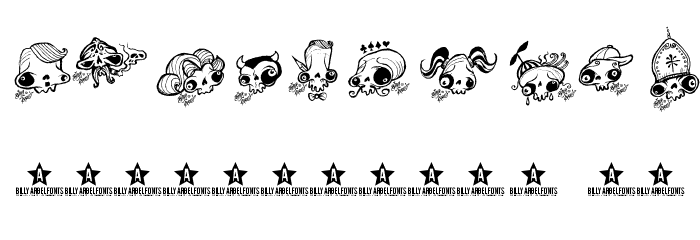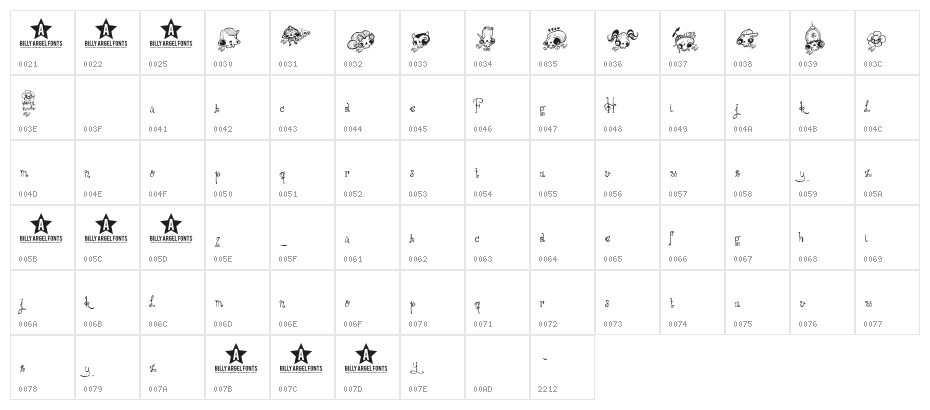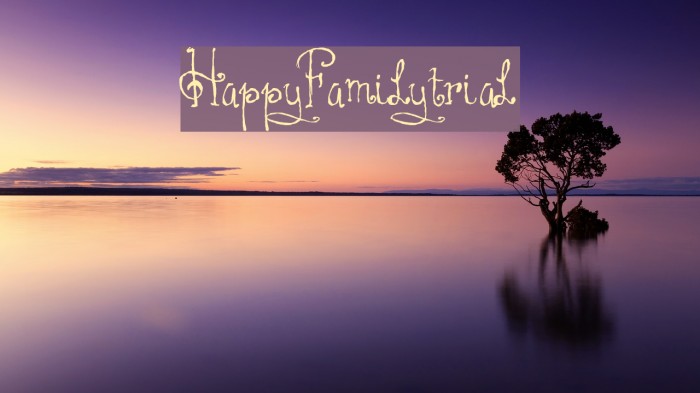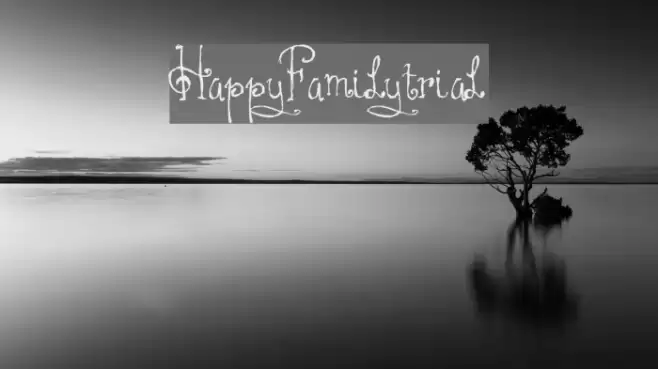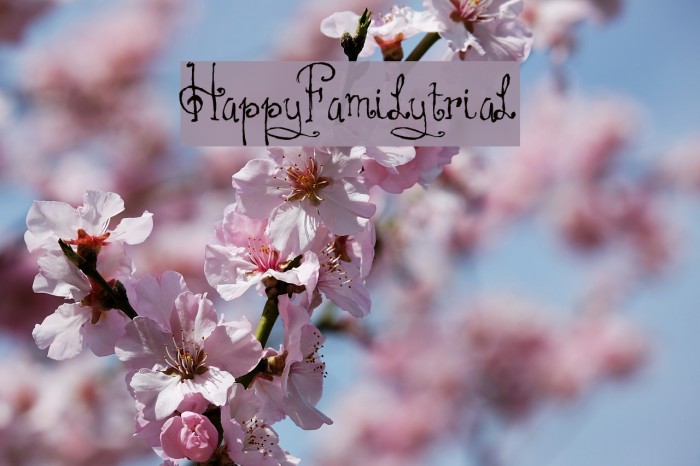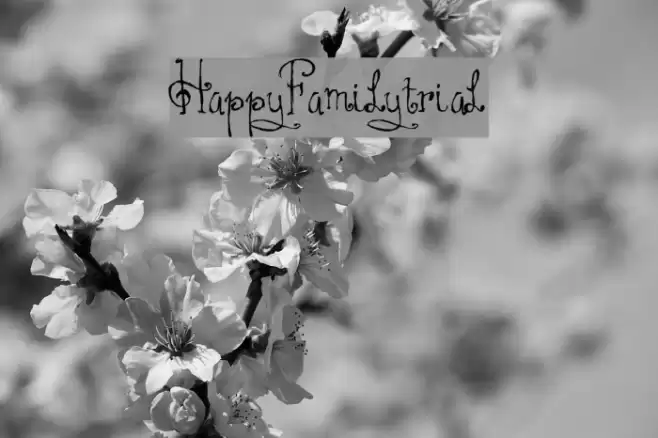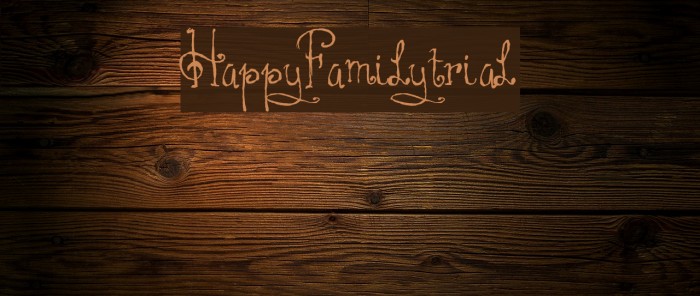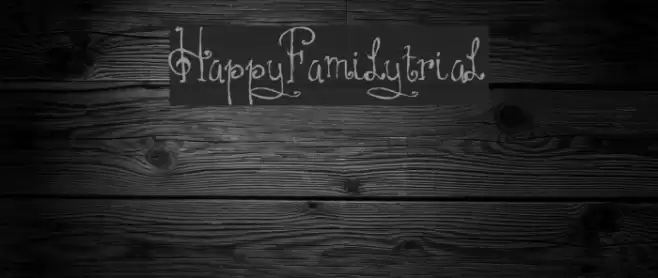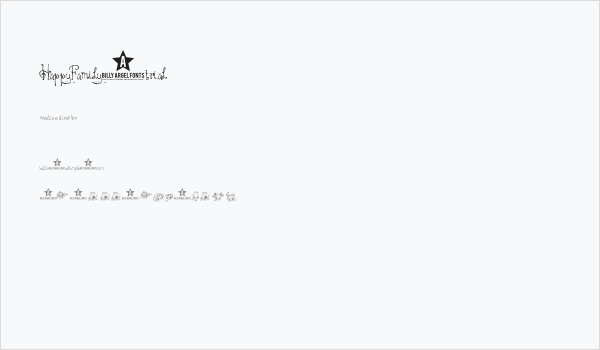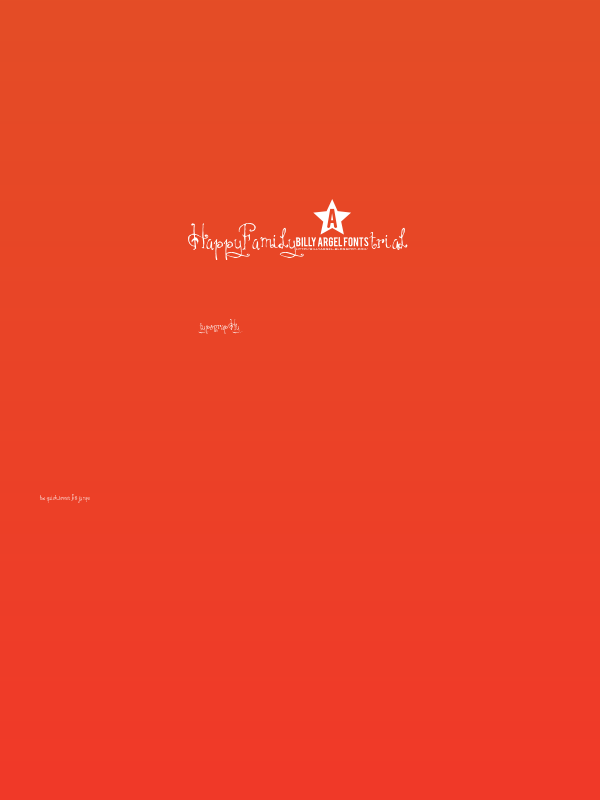
HAPPYFAMILY-TRIAL Font
HAPPYFAMILY-TRIAL Description
This font features an intricate and whimsical design, characterized by its ornate and decorative letterforms. Each character is uniquely crafted with elaborate swirls and embellishments, giving it a playful yet gothic appearance. The uppercase and lowercase letters maintain a consistent style, with exaggerated loops and curls that add a sense of movement and flair. The font includes a set of quirky skull illustrations, enhancing its playful and edgy aesthetic. This font is ideal for creative projects that require a touch of fantasy and individuality.
| Use Case | Logos, Posters, Creative Invitations |
| Proposed Projects | Perfect for Halloween-themed designs, fantasy book covers, creative invitations, and edgy branding projects. |